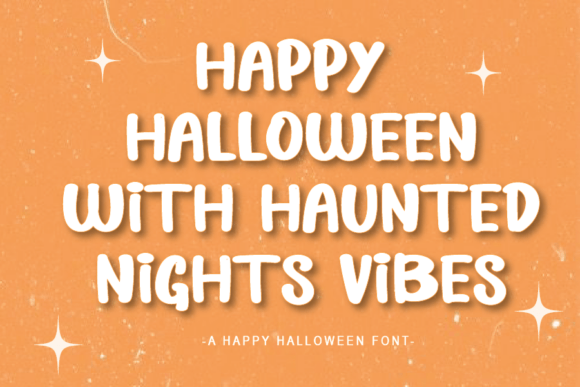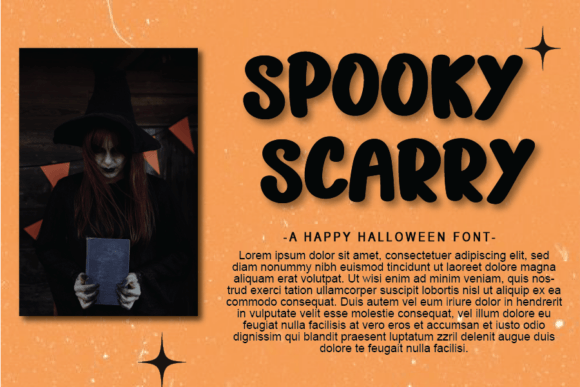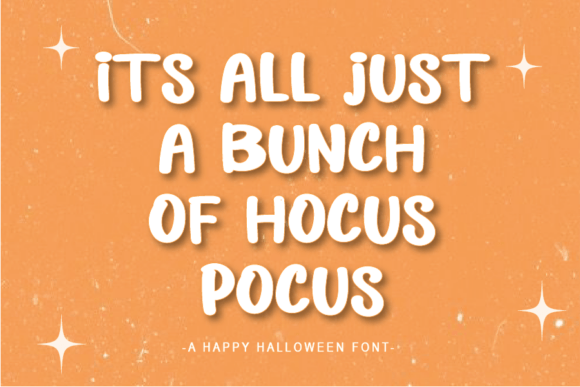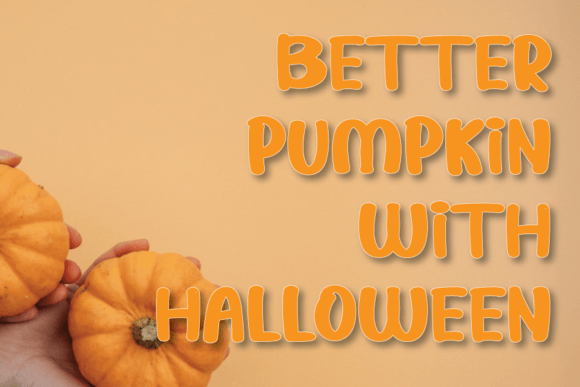
Happy Halloween Font: The Ultimate Typeface for a Spooktacular Celebration
As the spookiest time of the year approaches, designers and crafters are on the lookout for the perfect font to add a touch of eeriness to their Halloween-themed projects. Look no further than Happy Halloween, the ultimate font of eeriness that’s sure to bring a dramatic aura to your October endeavors. In this article, we’ll introduce you to this enchanting typeface and explore the various ways you can use it to make your Halloween party invitations, web graphics, and decor stand out.
Introducing Happy Halloween Font
Happy Halloween is a carefully crafted font designed to embody the spirit of Halloween. Its unique and captivating design makes it the perfect choice for anyone looking to add a touch of spookiness to their projects. Whether you’re creating Halloween party invitations, web graphics, or decor, this font is sure to make your designs stand out.
Perfect for Halloween Party Invitations
Halloween party invitations are the perfect way to set the tone for your spooktacular celebration. With Happy Halloween font, you can create invitations that are both eerie and elegant. Imagine sending out invitations that feature a hauntingly beautiful design, complete with spider webs, bats, and jack-o-lanterns. The Happy Halloween font is the perfect addition to any Halloween party invitation, and is sure to get your guests in the mood for a spooktacular celebration.
Adding an Uncanny Vibe to Your Web Graphics
In addition to party invitations, Happy Halloween font can also be used to add an uncanny vibe to your web graphics. Whether you’re creating a Halloween-themed website, social media post, or online advertisement, this font is sure to make your designs stand out. Imagine creating a spooky animation or graphic that features the Happy Halloween font, complete with creepy crawlies and eerie sound effects. Your web graphics are sure to grab the attention of your audience and leave a lasting impression.
Eerie Whimsicality for Your Halloween Decor
Happy Halloween font isn’t just limited to digital designs. You can also use it to add an eerie whimsicality to your Halloween decor. Imagine creating a spooky centerpiece or mantel display that features the Happy Halloween font, complete with pumpkins, skeletons, and other Halloween-themed decorations. This font is sure to add a touch of personality to your Halloween decor and make your celebration even more special.
Why Choose Happy Halloween Font?
So why choose Happy Halloween font over other Halloween-themed fonts? Here are just a few reasons why this font stands out:
- Unique Design: Happy Halloween font features a unique and captivating design that’s sure to make your projects stand out.
- Eerie yet Elegant: This font is both eerie and elegant, making it perfect for a wide range of Halloween-themed projects.
- Versatile: Happy Halloween font can be used for everything from party invitations to web graphics to Halloween decor.
Tips for Using Happy Halloween Font
Here are a few tips for using Happy Halloween font in your projects:
- Experiment with Different Sizes: Try using the Happy Halloween font in different sizes to create a unique and eye-catching design.
- Combine with Other Fonts: Combine the Happy Halloween font with other Halloween-themed fonts to create a truly unique design.
- Add Graphics and Images: Add graphics and images to your design to make it even more spooktacular.
- Use in Combination with Other Halloween-themed Elements: Use the Happy Halloween font in combination with other Halloween-themed elements, such as pumpkins, skeletons, and bats, to create a cohesive design.
| Font Name | Happy Halloween Font |
| Author | Ts_store |
In conclusion, Happy Halloween font is the ultimate typeface for a spooktacular celebration. Its unique and captivating design makes it perfect for a wide range of Halloween-themed projects, from party invitations to web graphics to Halloween decor. With its eerie yet elegant design, Happy Halloween font is sure to add a touch of personality to your projects and make your Halloween celebration even more special. So why wait? Download Happy Halloween font today and start creating your own spooktacular designs!